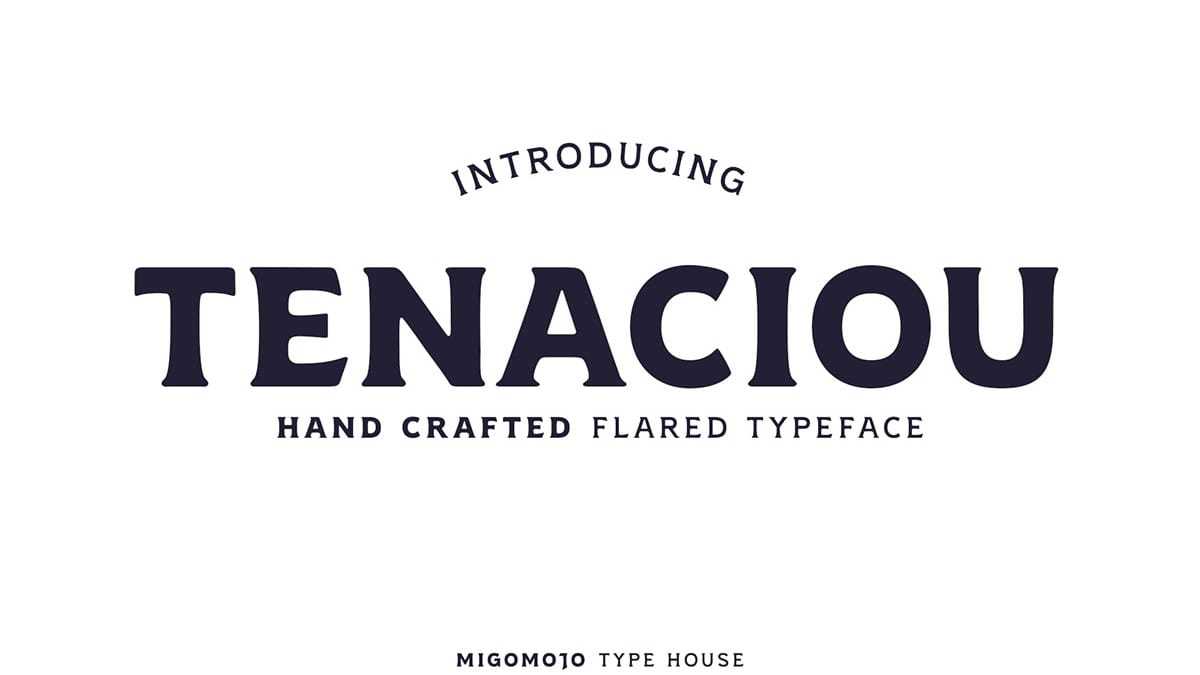
Download Tenaciou font, a counter-culture inspired typeface, hand-lettered and digitally crafted to retain its organic charm. Tenaciou font features bold, flaring letterforms with unique, organic shapes that capture the spirit of rebellion and creativity.